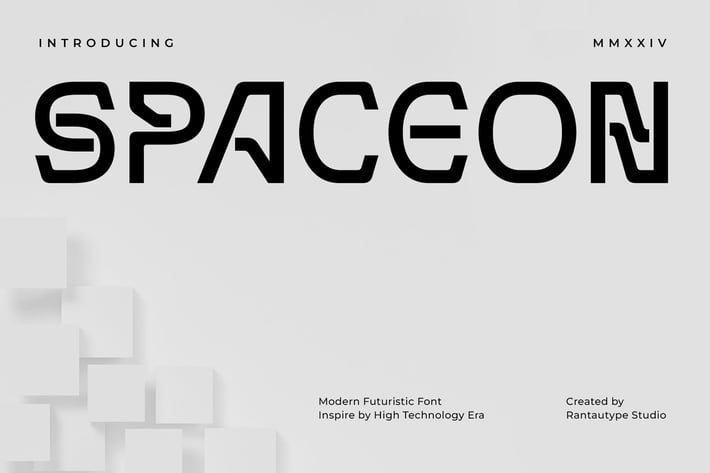
Spaceon Futuristic Logo Font
Spaceon is modern futuristic font with unique strong character. Spaceon can bring you to the ultimate of future technology with moden and minimalist form.
Spaceon is perfectly for a logo but multipurpose can be use like advertisements, stationery, branding project, display and magazine, headline, corporate brand, product design, label, business project and many other project with old futuristic touch.
Alternate and Ligature